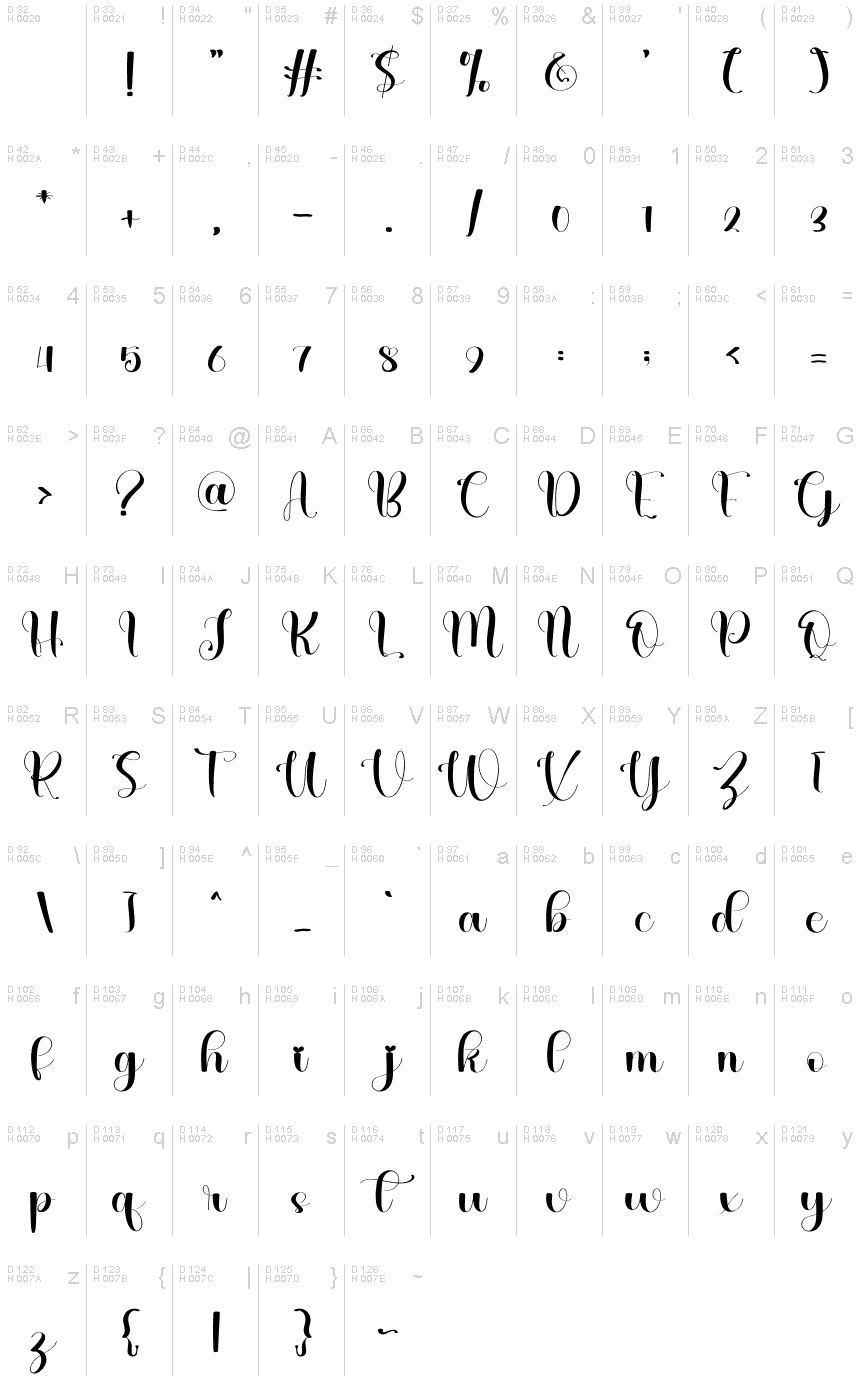
Women
Women, a calligraphy font by FreshtypeINK, exudes elegance and fluidity, capturing the essence of handcrafted artistry. With its sweeping curves and fine lines, this font stands out for its sophisticated yet personal touch. Perfect for invitations, branding, and editorial designs, Women adds a sense of refinement and character to any project it graces.
Its charm lies in the delicate balance between traditional calligraphy strokes and contemporary design sensibilities—making it an impeccable choice for those seeking to convey beauty with a hint of intimacy.